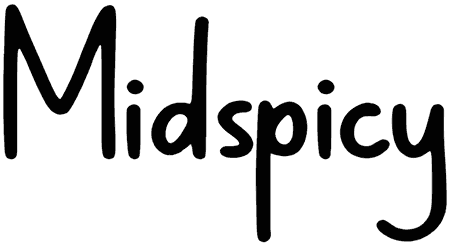
Midspicy Font
Besides having clean and precise lines, Midspicy font has unique features that convey a sense of originality and individuality. This bullet journal font is perfect for capturing the human touch and creating a more intimate connection with your audience, and you can customize it to suit your needs.
Whether you want to create a romantic wedding invitation, a playful children’s book, or a nostalgic poster, this script font can help you achieve the perfect tone.